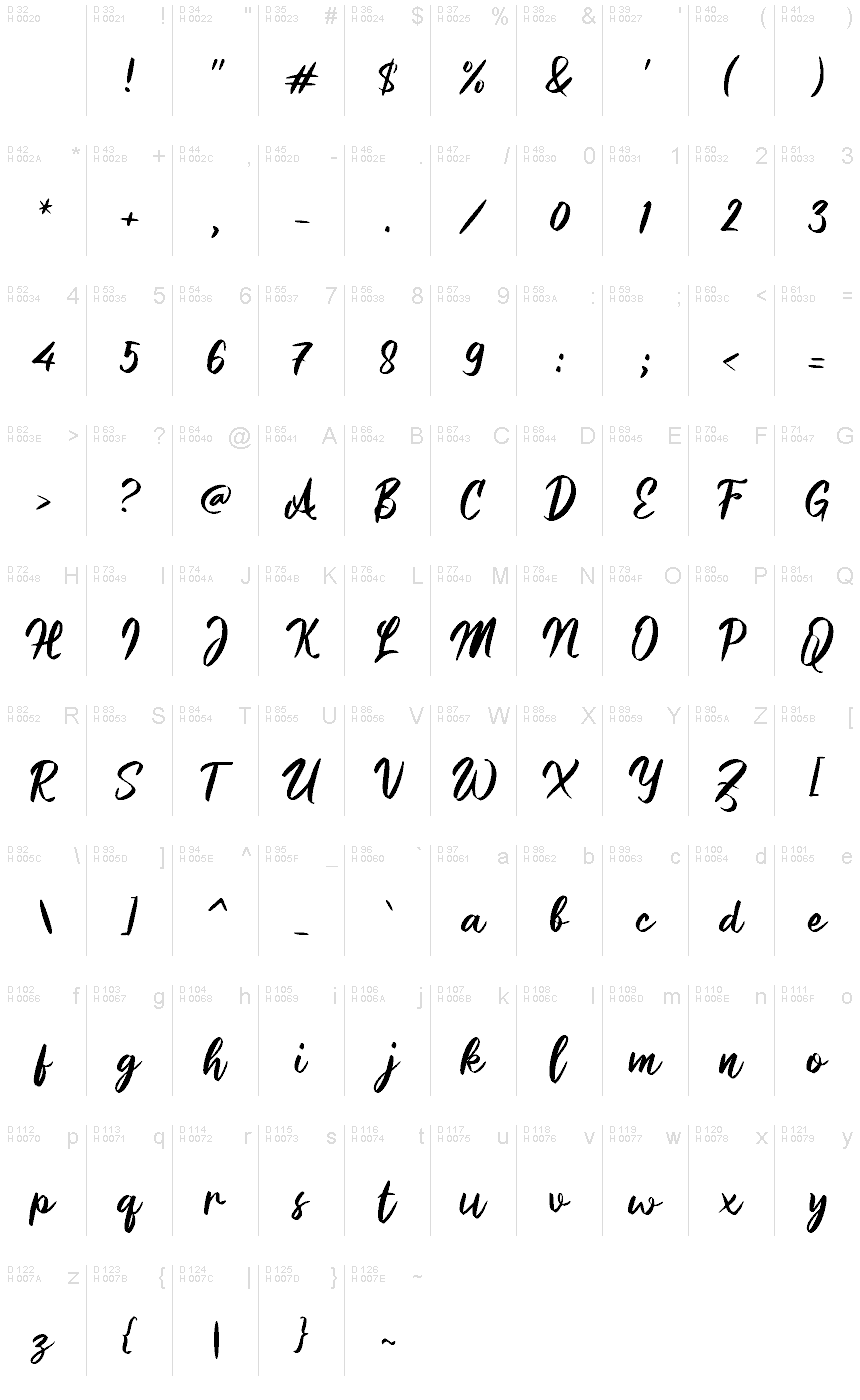
Halmas
Halmas font by wep is an elegant and expressive handwritten font that captures a fluid movement with its contemporary style. This free handwritten font evokes warmth and a personal touch, making it perfect for projects requiring authenticity and charm.